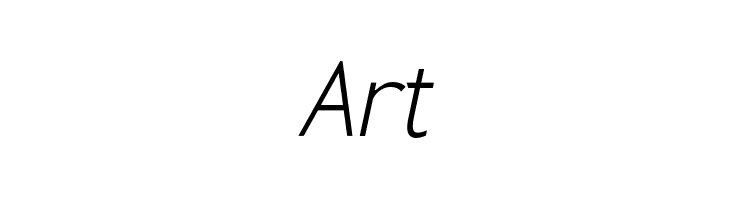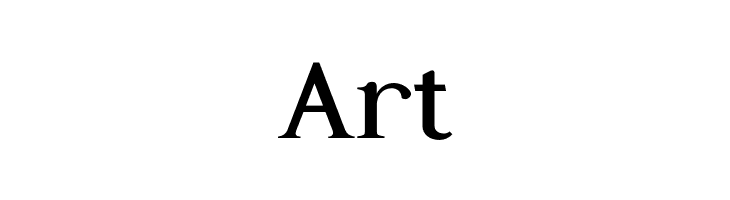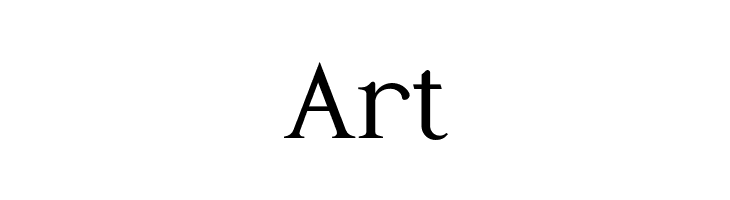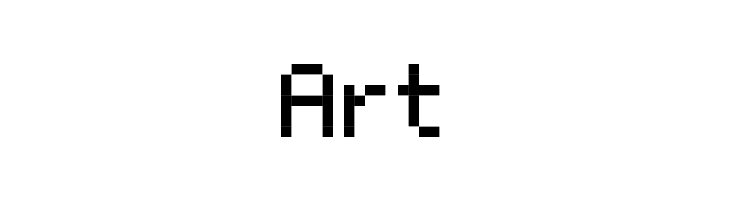
A modern, bold, italic sans-serif font with clean lines and excellent readability.
A clean, modern sans-serif font with balanced spacing and uniform stroke width.
A sleek, modern sans-serif font with a light, italic style.
An elegant serif font with a classic italic style and refined curves.
A bold, modern sans-serif font with clean lines and balanced proportions.
A bold serif font with high contrast and sharp serifs, exuding classic elegance.
A bold, italic serif font with a classic and elegant style.
A modern, light sans-serif font with clean lines and excellent readability.
A classic serif typeface with elegant and refined letterforms.
A pixelated, bitmap-style font with a retro digital aesthetic.